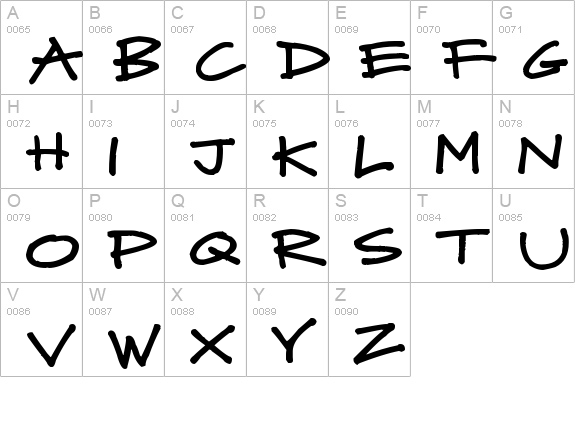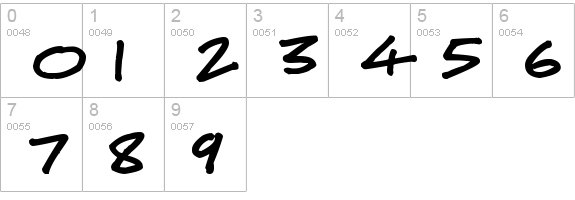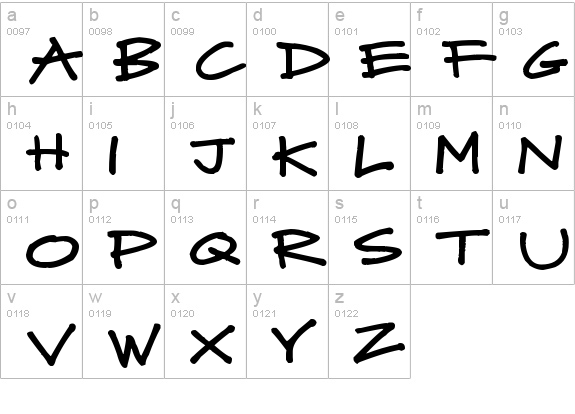
Mad Midnight Markers Font Details
Mad Midnight Markers is a free for personal use font in the Fancy > Comic category, designed by Darrell Flood. It has been downloaded 102 times and is available for Windows, Mac and Linux.
Mad Midnight Markers font is a whimsical and playful typeface perfect for adding a touch of creativity to your projects. With its unique hand-drawn style and quirky charm, this font is sure to make a statement. Whether you're designing posters, invitations, or social media graphics, Mad Midnight Markers font will bring your designs to life.